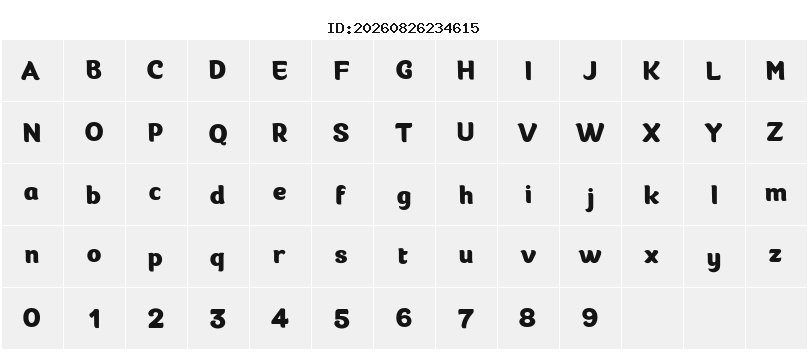
• Font Name: Gumley-Regular
• Full Font Name: ☞Gumley
• PostScript Name: Gumley-Regular
• Character Count: 310
• Designer: Robert Corseanschi
• Manufacturer: Robert Corseanschi
About Gumley-Regular.ttf
Gumley-Regular.ttf is a modern, elegant sans-serif font designed for ultimate readability and visual harmony. Perfect for branding, headlines, web design, and print materials.